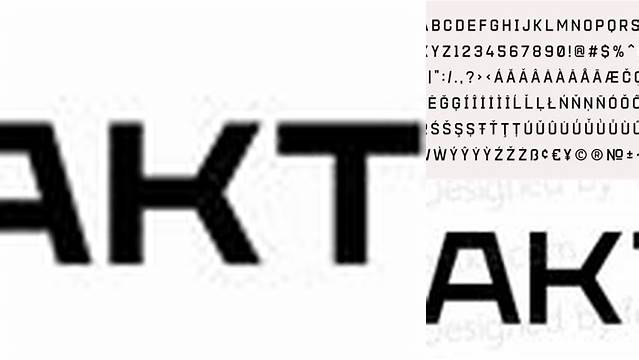
Let's dive into the world of Protrakt Variable Bold, a font that's been making waves in the design community. In this guide, we'll explore everything you need to know about this awesome font, including where to download it for free and how to make the most of it in your projects. Whether you're a seasoned designer or just starting out, understanding the nuances of Protrakt Variable Bold can seriously up your creative game. So, grab a coffee, get comfy, and let's get started!
What is Protrakt Variable Bold?
Protrakt Variable Bold is more than just a font; it's a versatile typeface designed to offer a wide range of weights and styles within a single font file. This variability allows designers to fine-tune the font to perfectly match the needs of their project, whether it's a clean, modern website or a bold, attention-grabbing poster. The 'Variable' aspect means you can adjust the font's weight, width, and other characteristics, giving you unparalleled control over its appearance. Think of it as having multiple fonts in one!
The beauty of Protrakt Variable Bold lies in its adaptability. You can seamlessly transition from a light, airy feel to a strong, assertive presence, all while maintaining a cohesive design. This makes it an excellent choice for branding projects, where consistency is key but flexibility is also needed. Plus, the ability to customize the font means you can create unique typography that stands out from the crowd. For example, imagine you're designing a logo. With Protrakt Variable Bold, you can tweak the weight to achieve the perfect balance between readability and visual impact, ensuring your logo is both memorable and effective.
Moreover, Protrakt Variable Bold often comes with OpenType features, such as ligatures, alternates, and stylistic sets. These features allow you to add even more personality and flair to your typography, making it truly unique. Ligatures, for instance, can combine two or more characters into a single glyph, creating a smoother and more visually appealing text. Alternates offer different versions of certain characters, giving you the option to choose the one that best fits your design. And stylistic sets provide pre-designed variations that can instantly transform the overall look of your text.
Key Features of Protrakt Variable Bold
When you're looking at the Protrakt Variable Bold font, it's essential to understand its key features. These features make it a standout choice for various design projects. One of the primary highlights is its variable nature, allowing for extensive customization of weight and width. This means you can adjust the font to be as light or as bold as you need it, giving you incredible flexibility in your designs. For example, you might use a lighter weight for body text to ensure readability and a heavier weight for headlines to grab attention.
Another crucial feature is its legibility. Despite being a bold font, Protrakt Variable Bold maintains excellent readability across different sizes and resolutions. This is particularly important for web design, where text needs to be clear and easy to read on various devices. The font's well-designed letterforms and balanced proportions contribute to its overall readability, making it a reliable choice for both print and digital applications. Imagine using it on a website; users will appreciate the clarity and ease with which they can read the content, enhancing their overall experience.
Furthermore, Protrakt Variable Bold often includes a comprehensive character set, supporting multiple languages and special characters. This is a significant advantage for designers working on international projects, as it ensures that the font can be used effectively in different linguistic contexts. The inclusion of special characters also opens up opportunities for creative typography, allowing you to add unique symbols and glyphs to your designs. For instance, you could use special characters to create eye-catching logos or decorative elements.
In conclusion, Protrakt Variable Bold is a powerful and versatile font that can enhance the visual appeal of your designs. With its wide range of weights and styles, excellent readability, and adaptability, it's a valuable addition to any designer's toolkit. So go ahead and give it a try, and see how it can transform your projects!